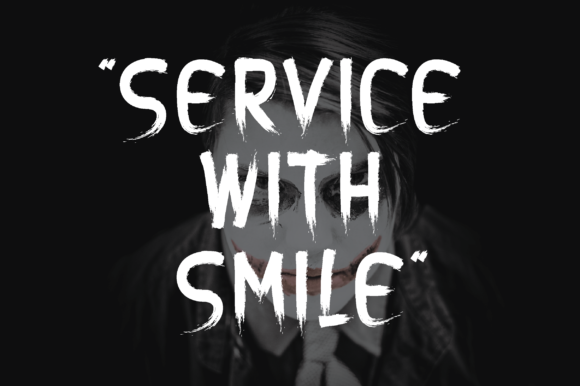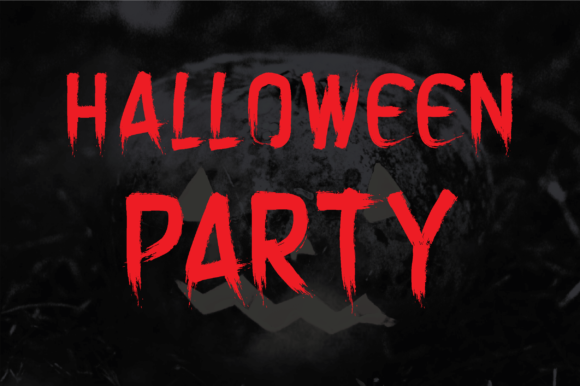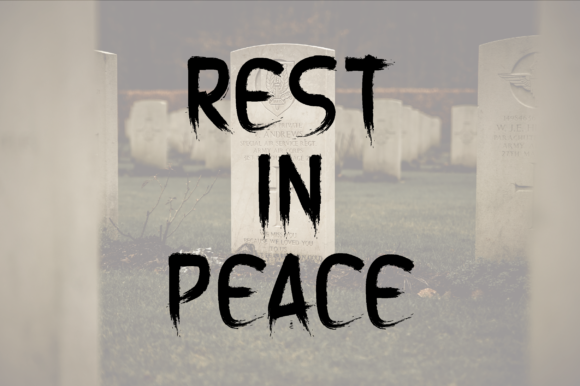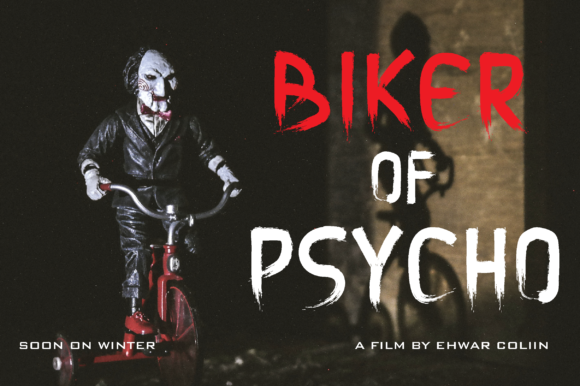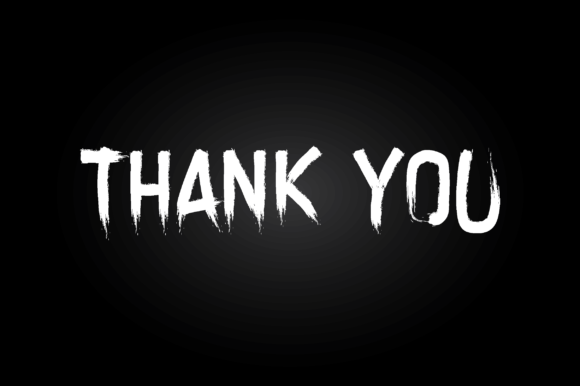
Discover the Quirkiness of Deganisious Font: A Unique Display Font for Creative Projects
In the vast world of typography, finding a font that stands out from the crowd can be a daunting task. However, if you’re on the hunt for a display font that exudes personality and versatility, look no further than Deganisious. This unique and interesting font is making waves in the design community, and for good reason. A little bit quirky, Deganisious looks incredibly adept on a wide variety of contexts, making it a fantastic addition to any designer’s toolkit.
The Origins of Deganisious
While the origins of Deganisious may not be well-documented, its impact on the design world is undeniable. This display font has been crafted with the intention of providing a distinctive and eye-catching aesthetic, perfect for projects that demand a bit of personality. Whether you’re working on a branding campaign, a website, or a craft project, Deganisious is sure to make a statement.
What Makes Deganisious Stand Out?
So, what sets Deganisious apart from other display fonts on the market? The answer lies in its quirky, yet elegant design. Deganisious boasts a unique blend of curves and lines that give it a distinctive feel, making it perfect for use in a variety of contexts. From headings and titles to logos and signage, this font is sure to add a touch of sophistication and whimsy to any project.
Key Features of Deganisious
- Unique Design: Deganisious features a one-of-a-kind design that sets it apart from other display fonts.
- Versatility: This font is incredibly versatile, making it suitable for use in a wide range of contexts, from digital to print.
- Quirky yet Elegant: Deganisious strikes the perfect balance between quirky and elegant, making it perfect for designers who want to add a bit of personality to their work.
Using Deganisious in Your Designs
Deganisious is an incredibly versatile font that can be used in a variety of design contexts. Here are a few ideas to get you started:
- Branding: Use Deganisious as a logo font or for branding materials to add a touch of personality to your company’s image.
- Web Design: Add a header or title font to your website with Deganisious for a unique and eye-catching look.
- Crafting: Use Deganisious for crafting projects, such as card making, scrapbooking, or DIY signage, to add a personal touch.
Tips for Pairing Deganisious with Other Fonts
When pairing Deganisious with other fonts, it’s essential to choose fonts that complement its unique style. Here are a few tips to keep in mind:
- Contrast: Pair Deganisious with a clean, sans-serif font to create contrast and make your text stand out.
- Complementary Fonts: Choose fonts with a similar feel or style to Deganisious to create a cohesive look.
- Experiment: Don’t be afraid to experiment with different font combinations to find the perfect pairing for your project.
| Author | olis394.kartstudio |
Deganisious is a unique and interesting display font that is sure to add a touch of personality to any design project. With its quirky yet elegant design, versatility, and wide range of uses, it’s no wonder that Deganisious is quickly becoming a favorite among designers and crafters. Whether you’re looking to make a statement or simply want to add a bit of whimsy to your work, Deganisious is an excellent choice.
So why not give Deganisious a try? With its ability to elevate any project and add a touch of sophistication, it’s sure to become a staple in your design toolkit.